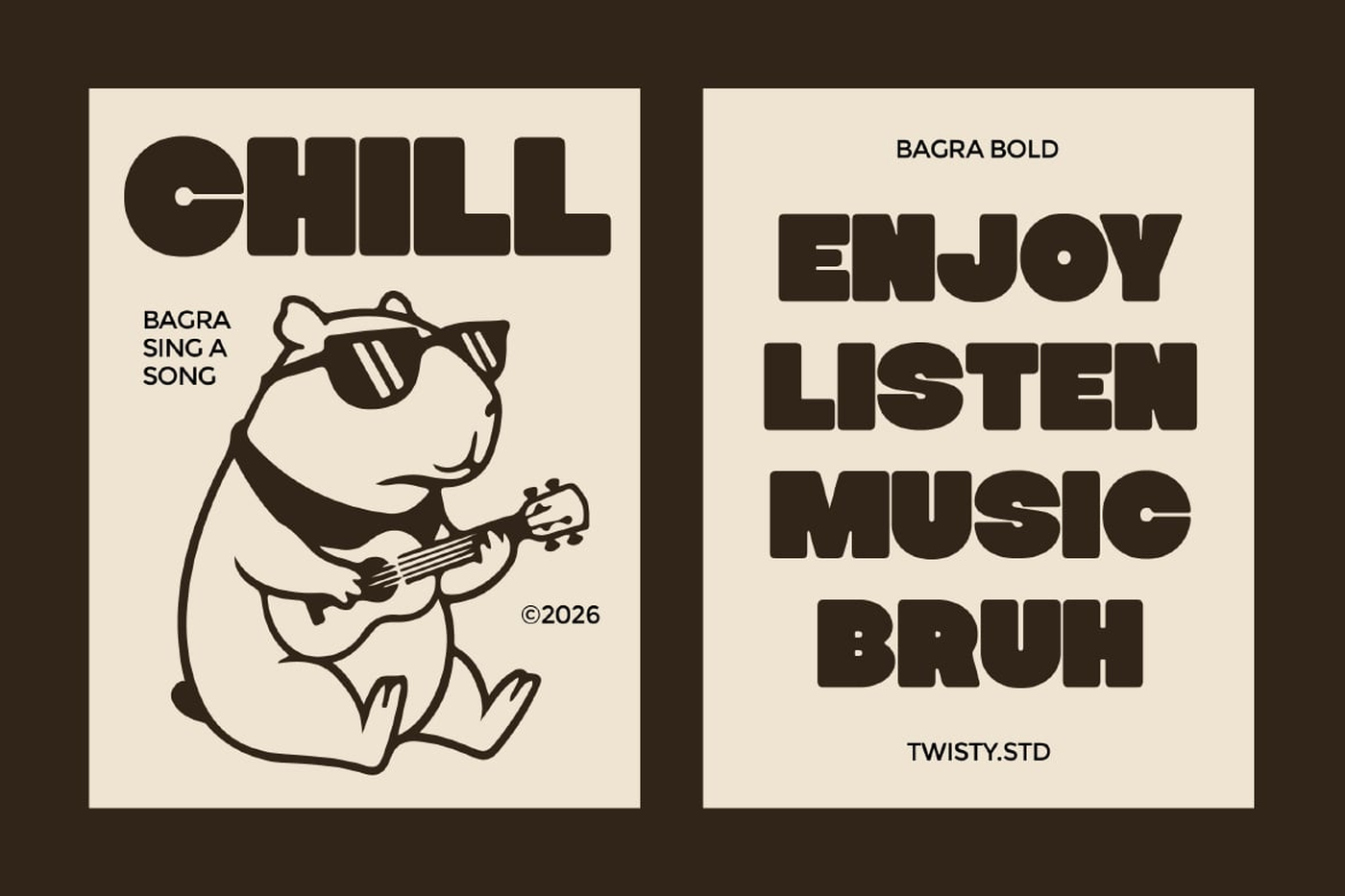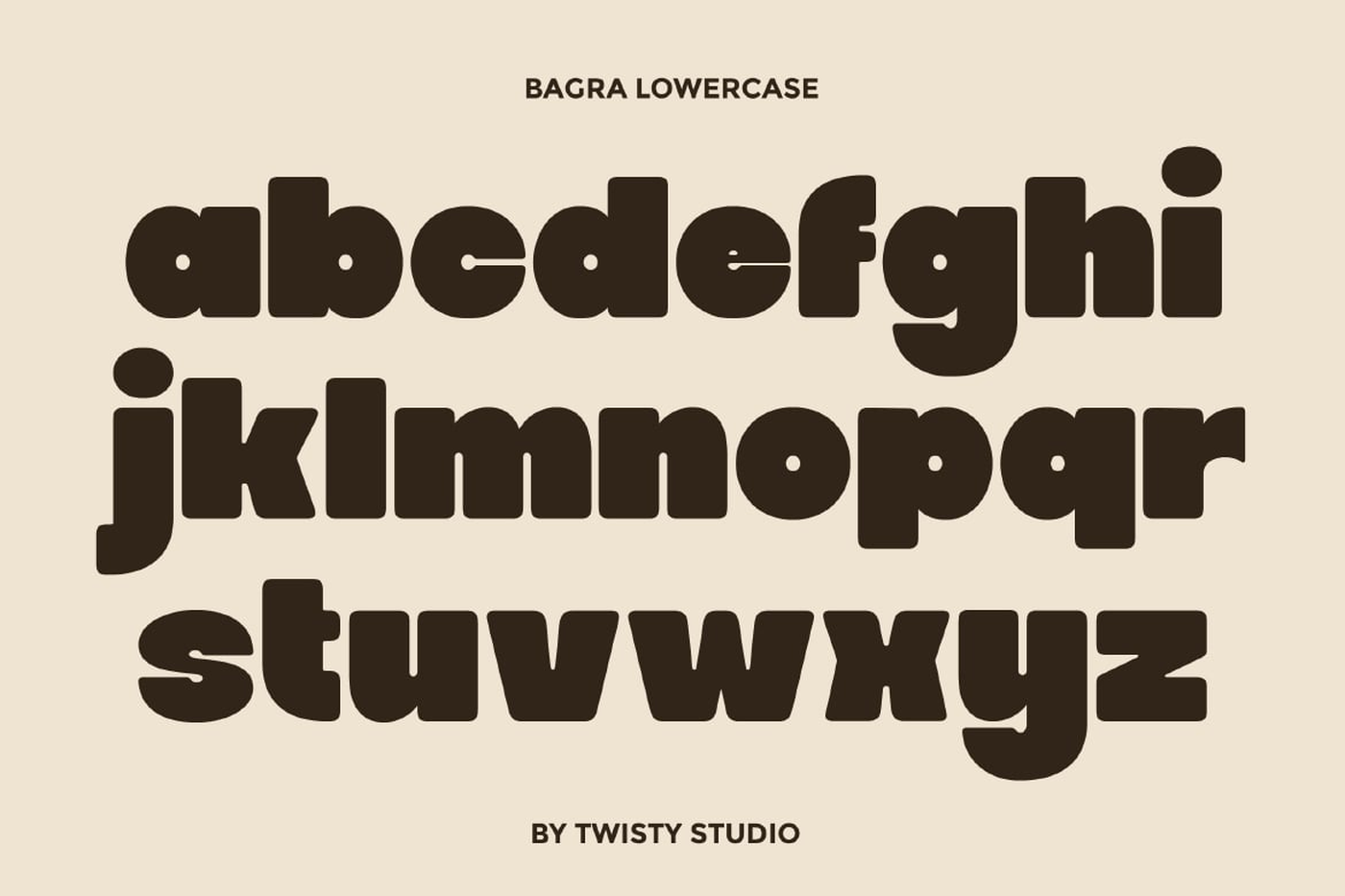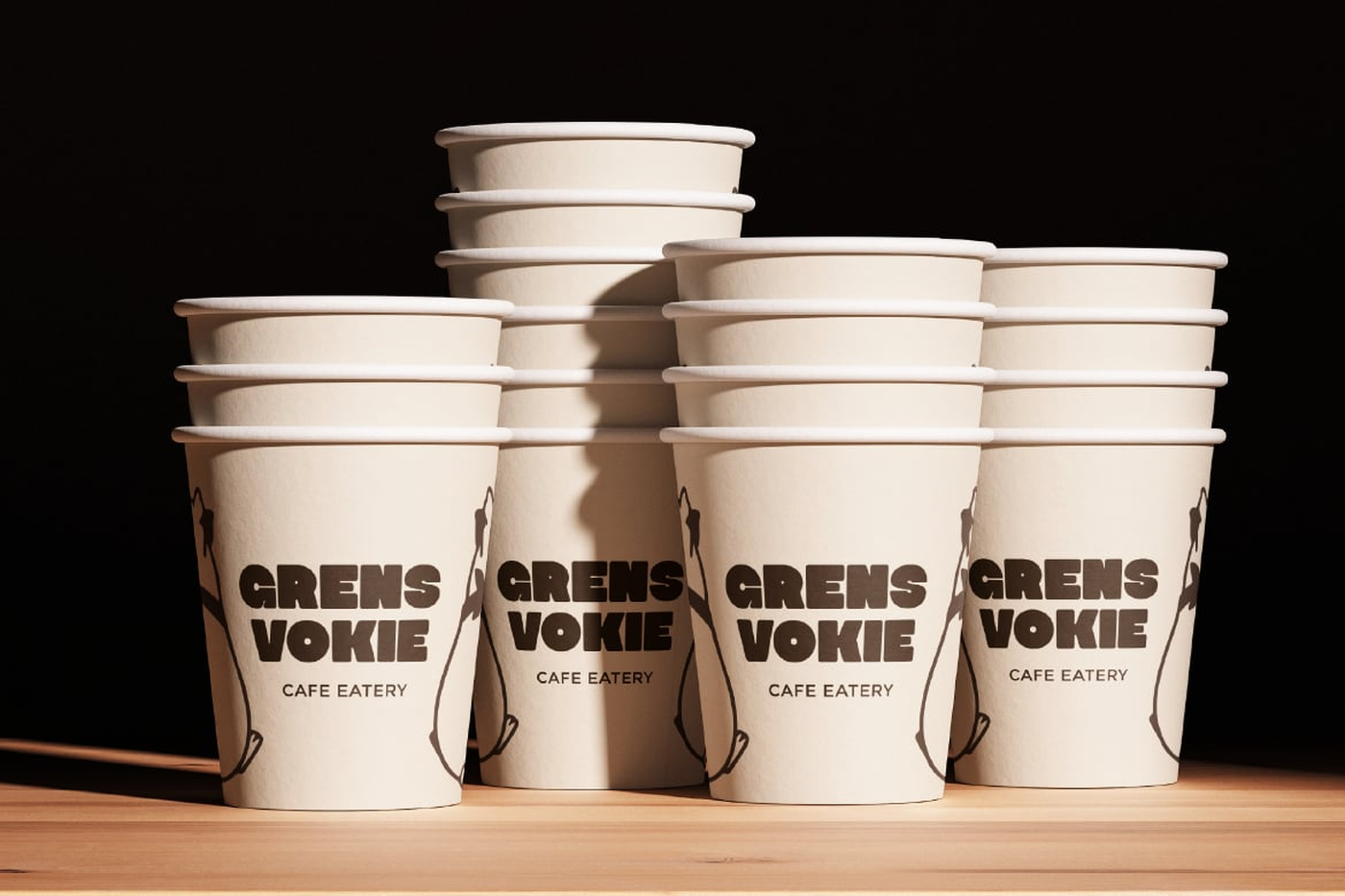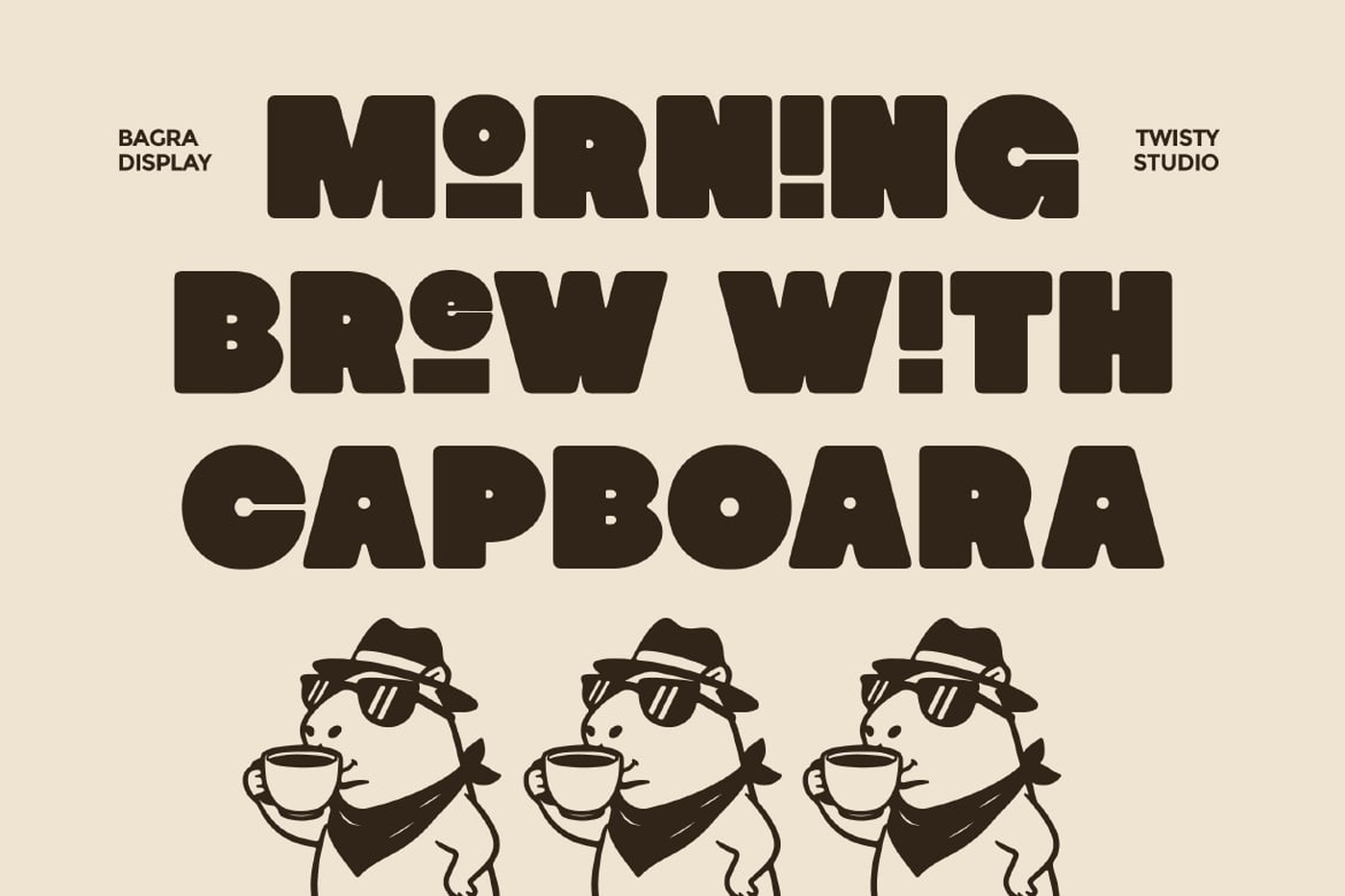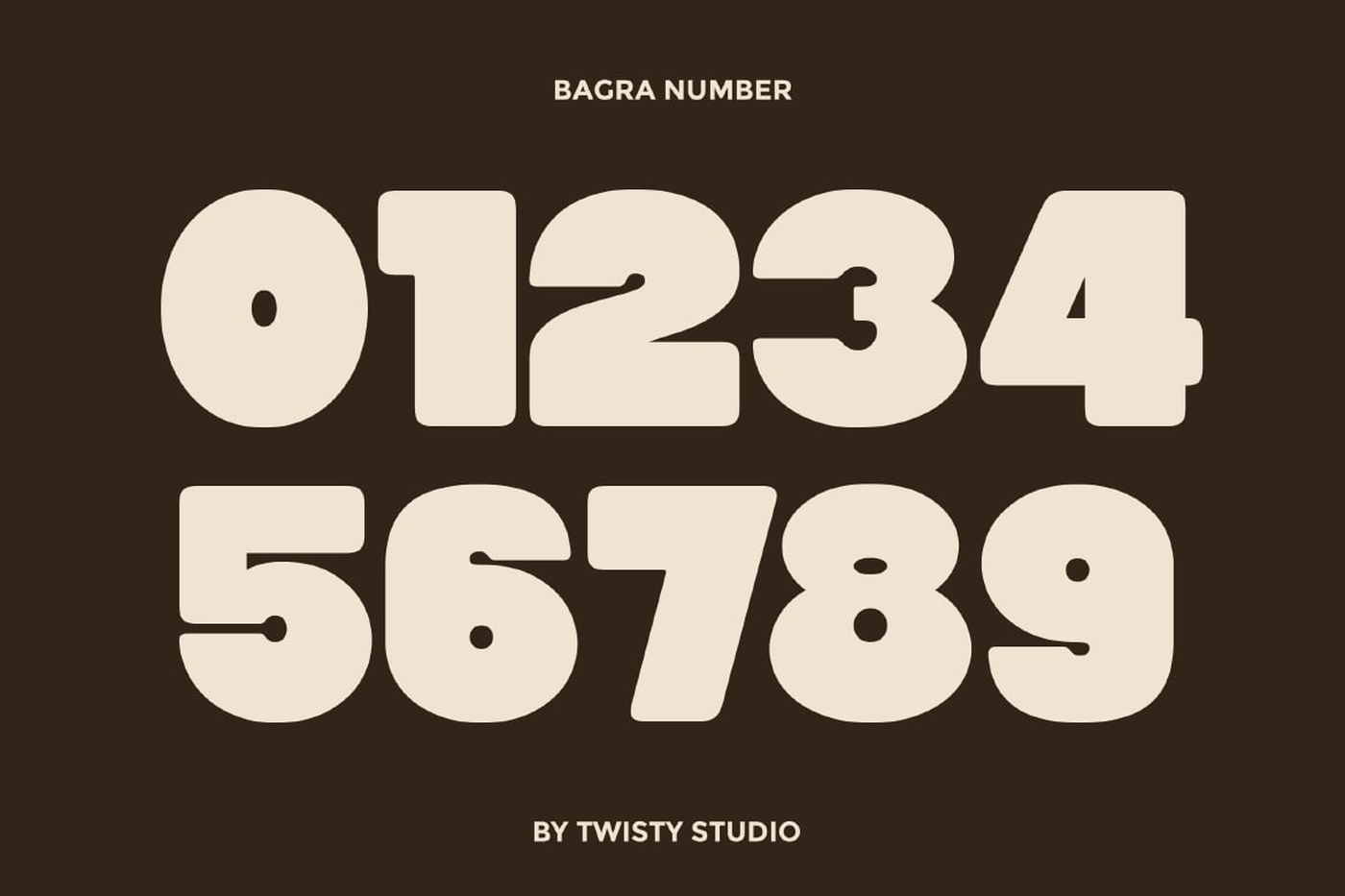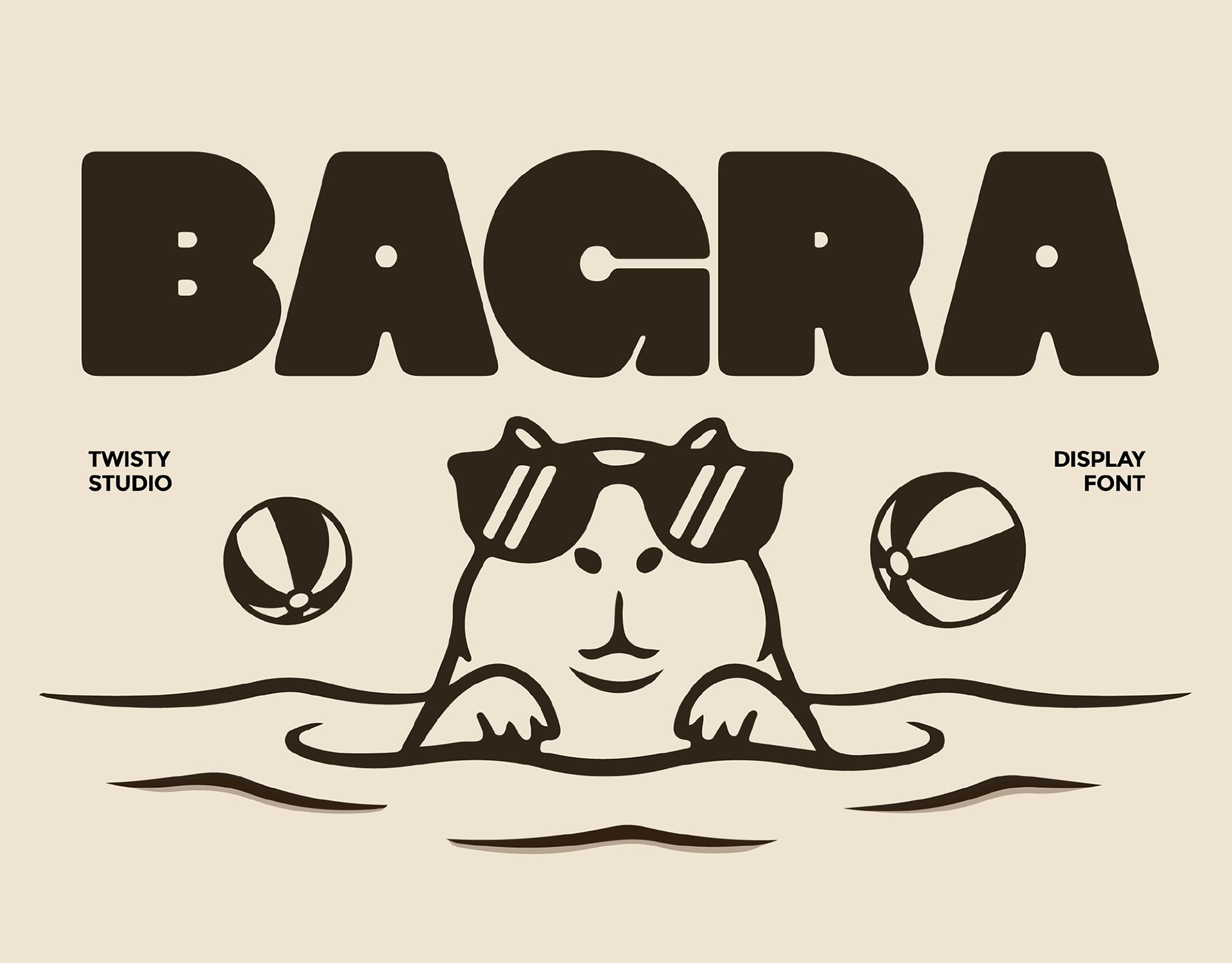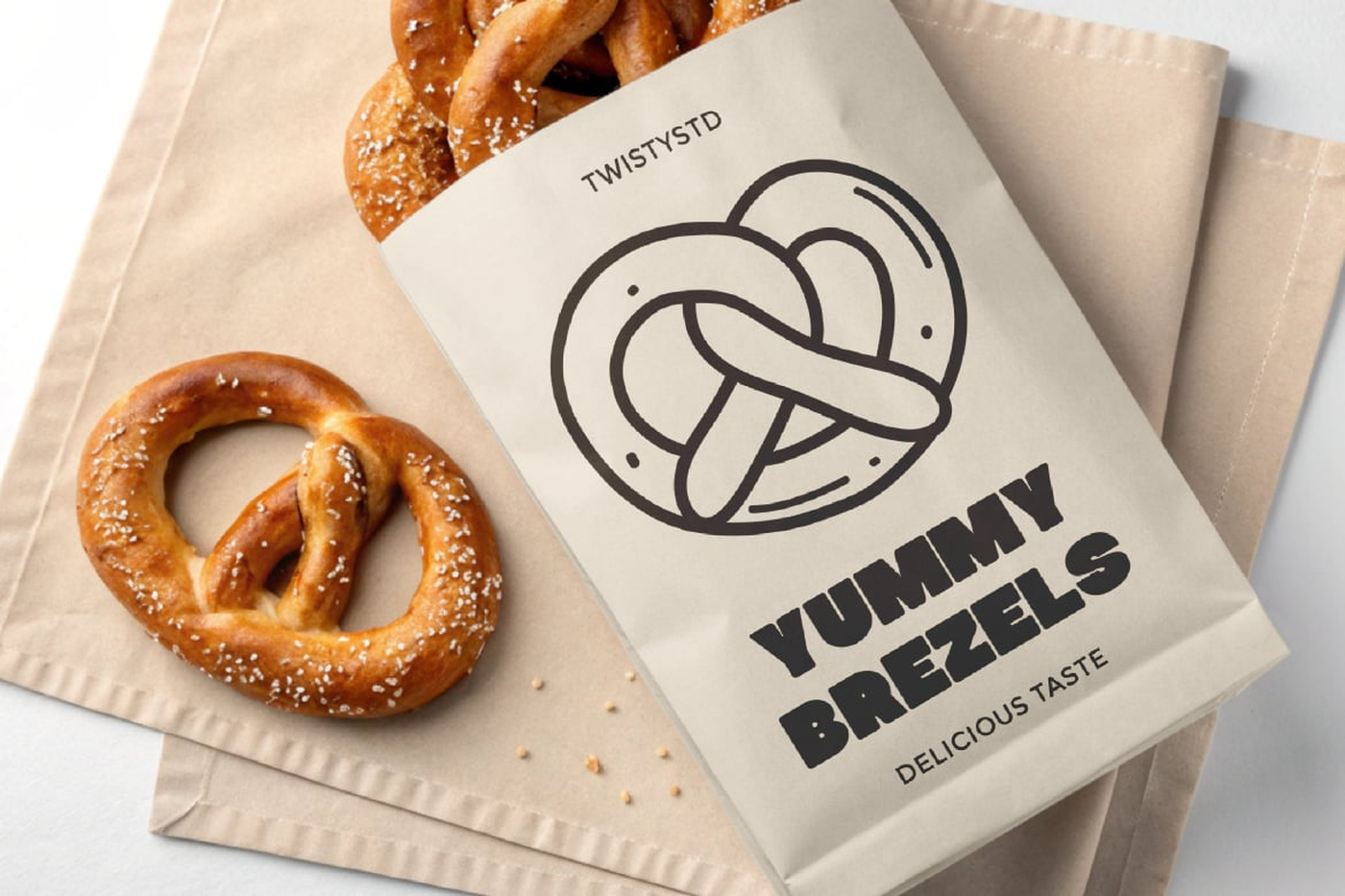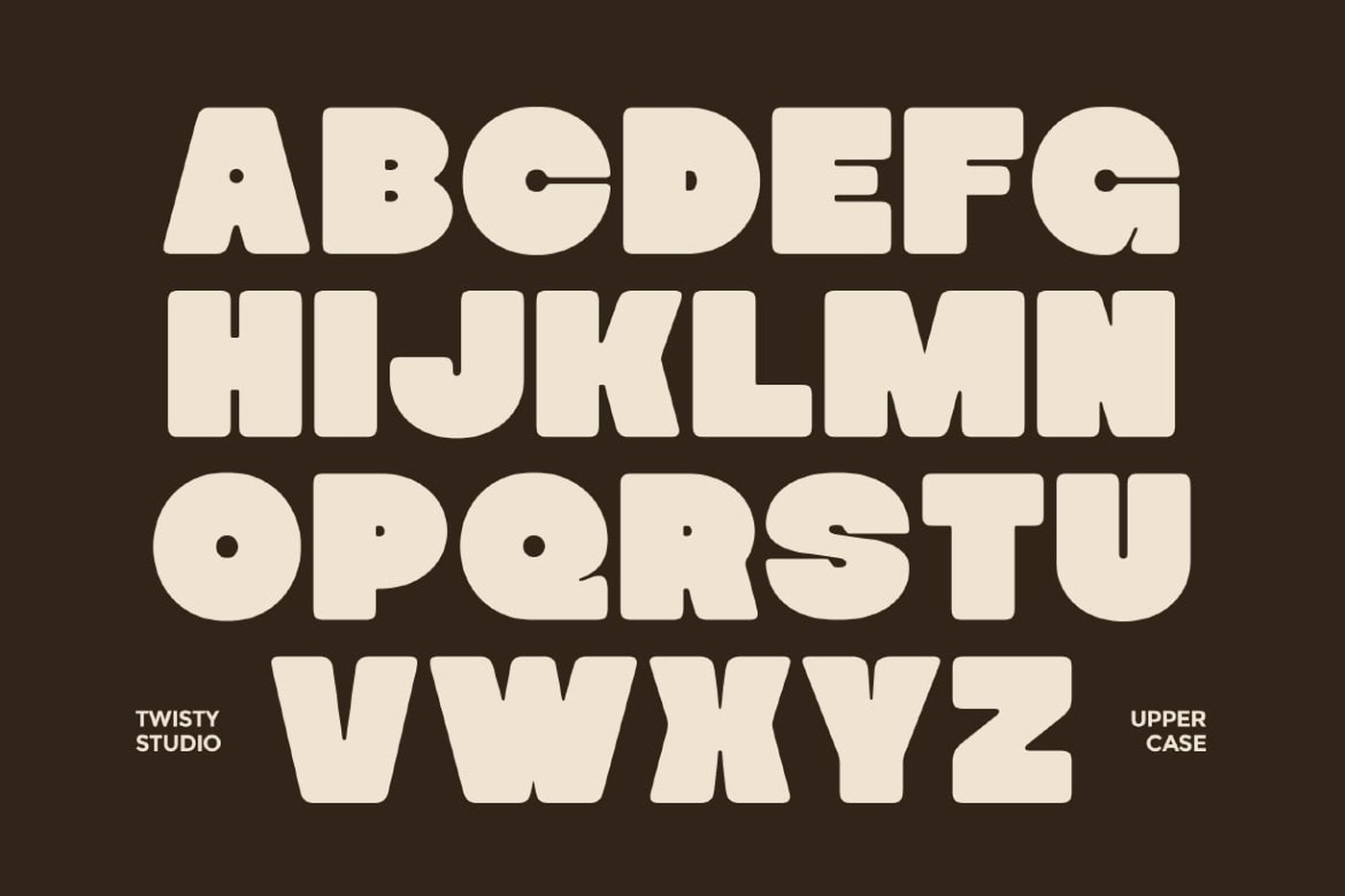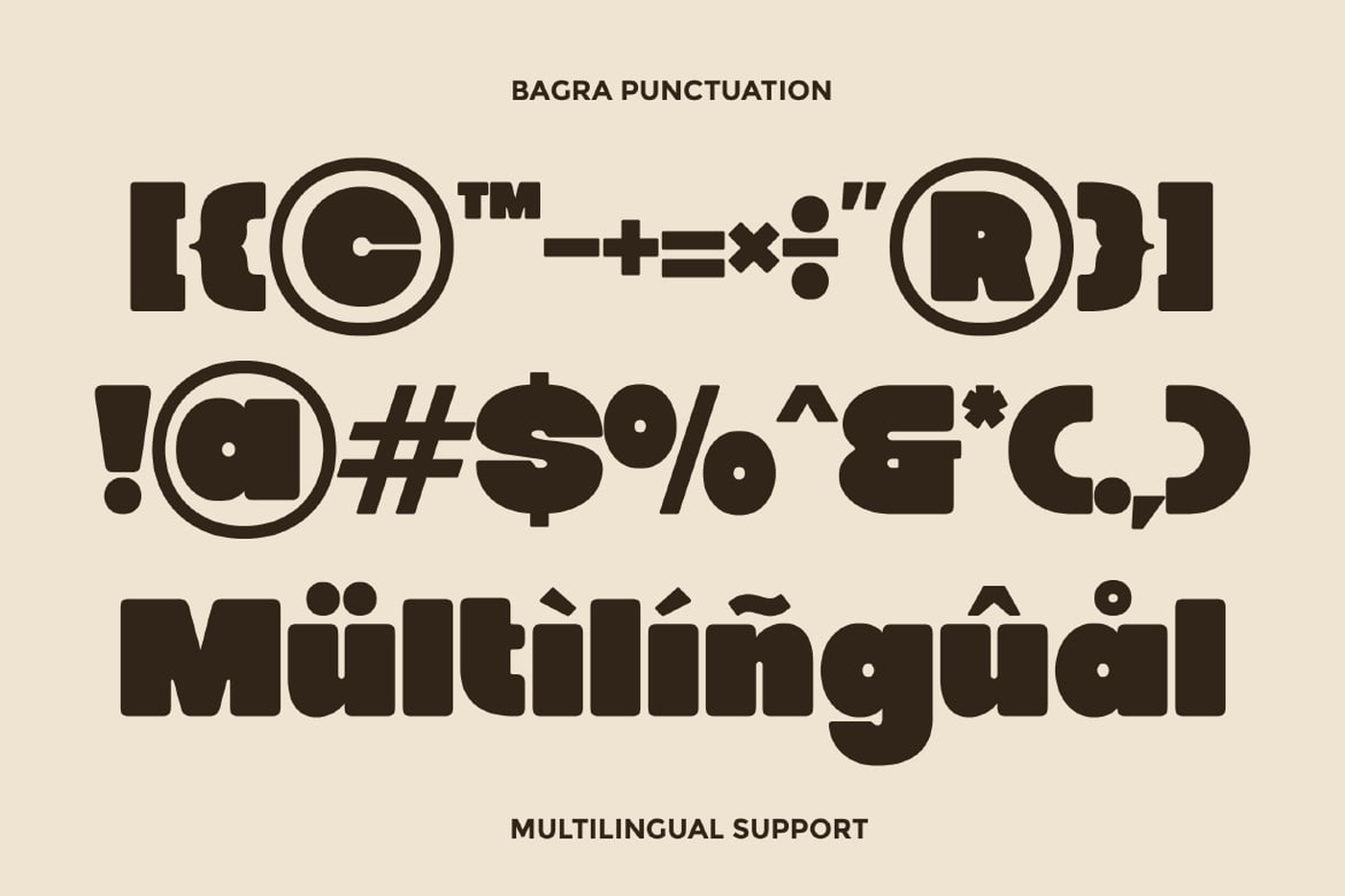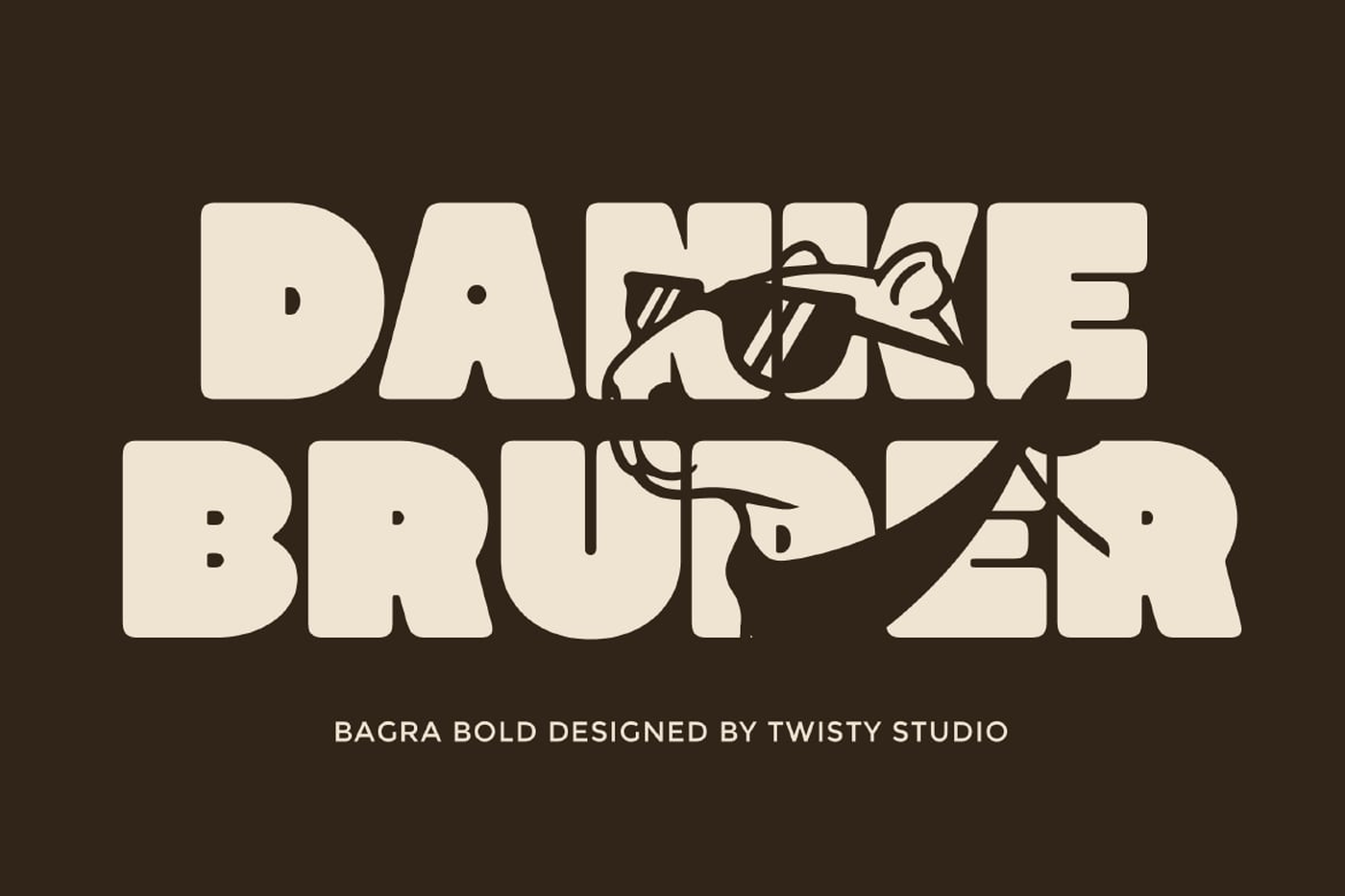
Bagra - Bold Display Font
Bagra is a bold display font that brings a fun, cute, and playful energy to your designs. With its chunky shapes, rounded edges, and lively character, Bagra is designed to make your typography feel cheerful, friendly, and full of personality. Every letter is crafted to stand out, creating a strong yet approachable look that instantly grabs attention. Perfect for eye-catching headlines and creative projects, Bagra delivers a joyful and expressive style that makes your designs feel more engaging and memorable.
Designer: Twisty .std
Font: Bagra